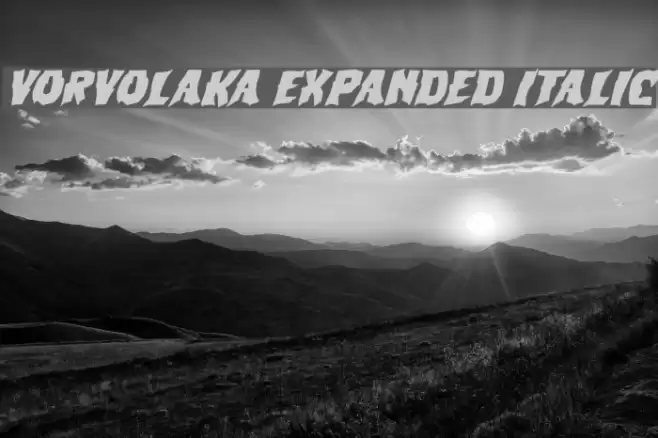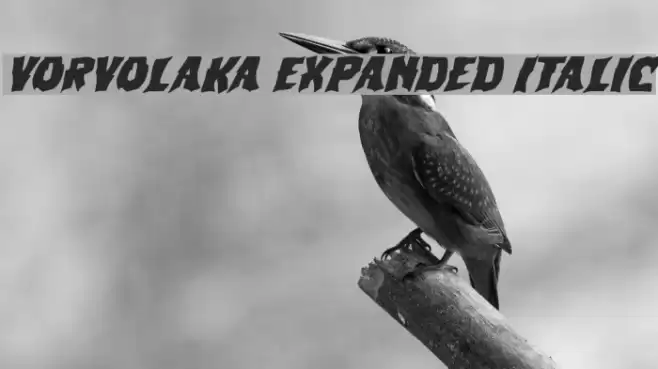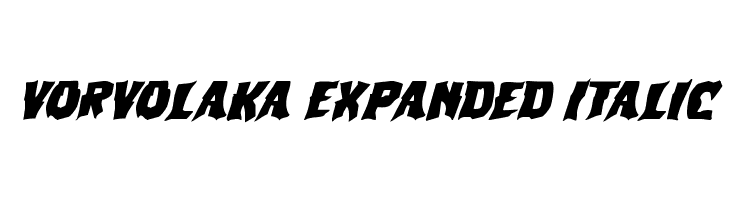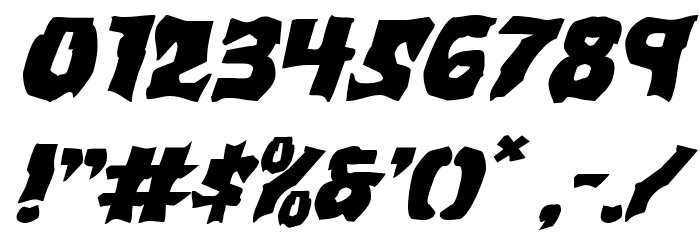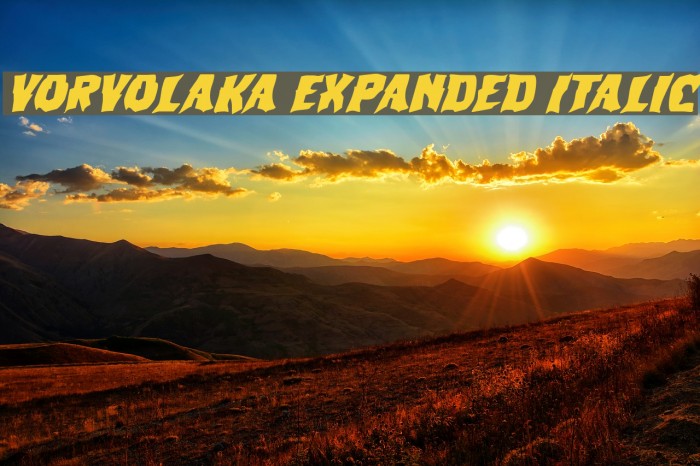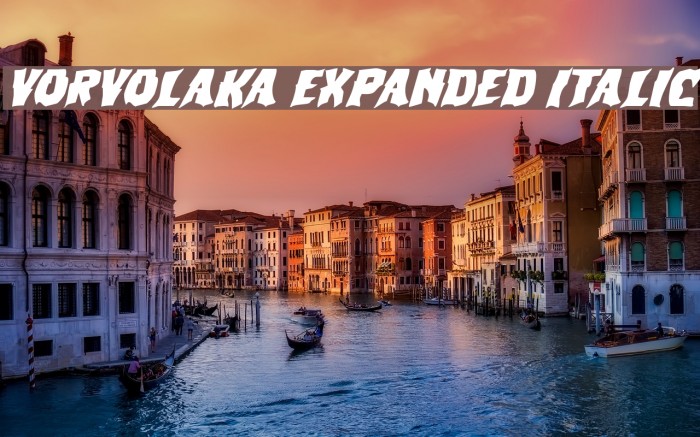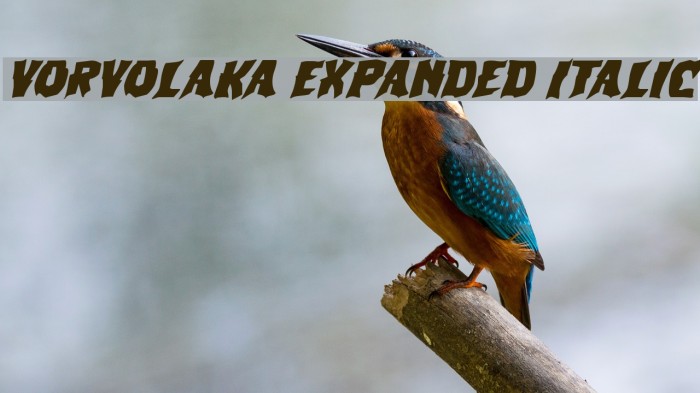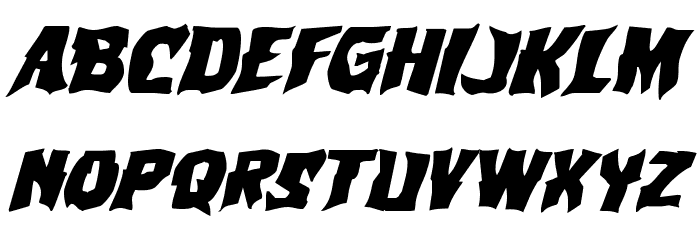
Vorvolaka Expanded Italic Font
Vorvolaka Expanded Italic Description
This font features a bold and dynamic design with an italicized slant, giving it a sense of motion and energy. The characters are expanded, providing a wide stance that enhances readability while maintaining a unique style. The strokes are thick and angular, creating a strong visual impact. The font's aggressive and edgy appearance makes it suitable for projects that require a bold statement. The uppercase and lowercase letters are consistent in style, with numbers and special characters following the same design principles. Overall, this font is ideal for attention-grabbing headlines and creative designs.
A bold, expanded, and italicized font with a dynamic and edgy style from Uncategorized fonts.
- Proposed Projects: Ideal for posters, logos, video game graphics, and any design needing a bold and energetic look.
- Overall Style: Modern, Decorative